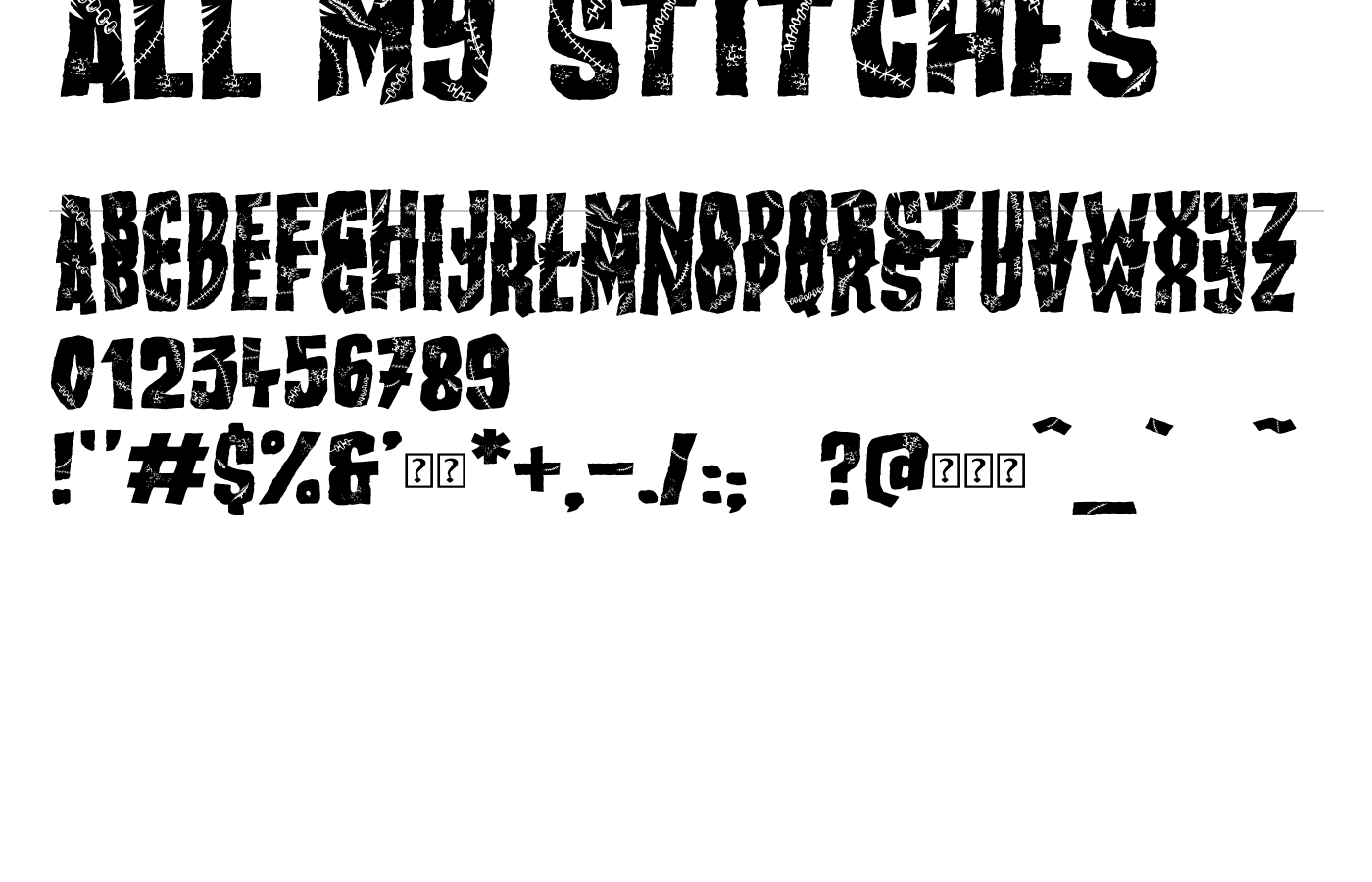
All My Stitches is a bold, uppercase display font with a rugged, distressed texture and decorative stitch-like details that give it a handmade, stitched appearance. Its blocky, irregular letterforms create a strong, artistic vibe perfect for creative, edgy branding, posters, or craft-related designs where a quirky, eye-catching style is desired. This font works best in headlines or logos that need a unique, handcrafted look with a playful yet bold personality.
All my Stitches Font